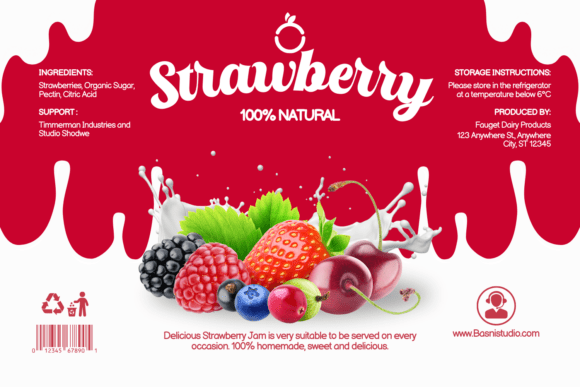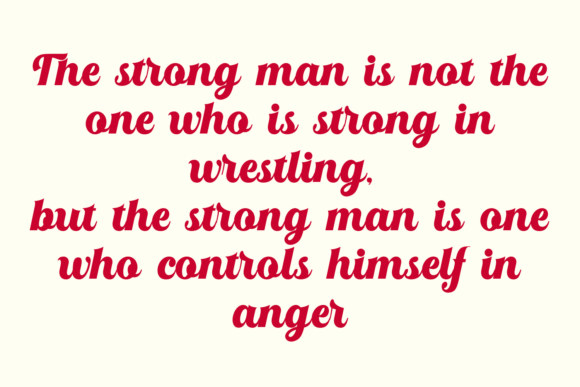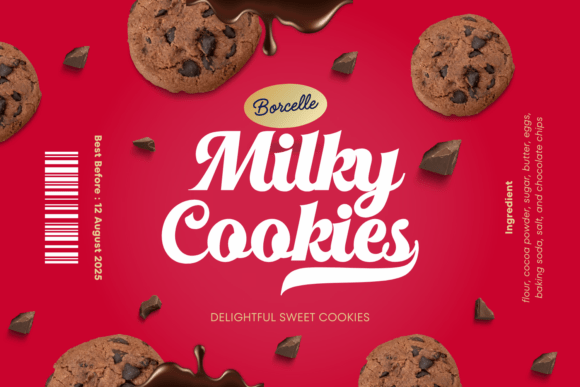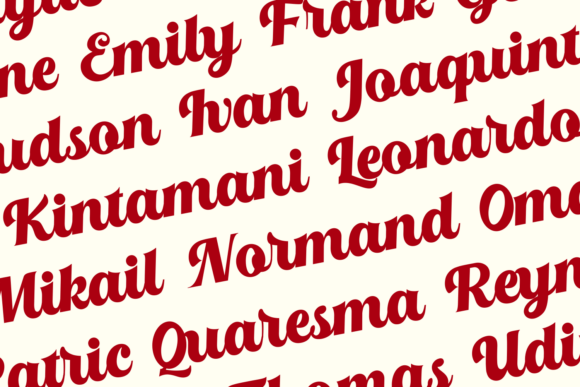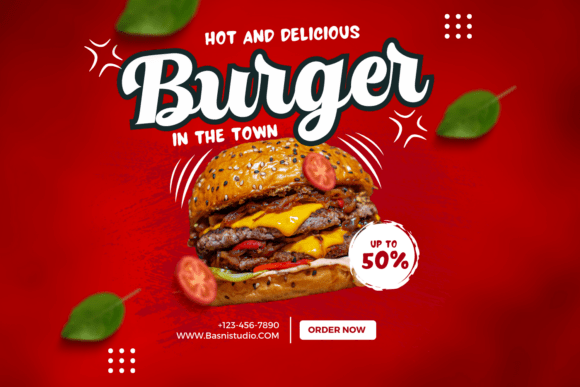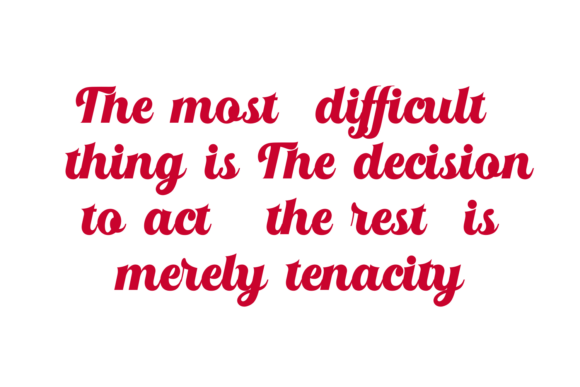
Unleash Bold Strength with Modern Calligraphy: Introducing Arakans Font 🎨✨
In the world of design, a brand’s identity is everything. It’s what sets you apart from the competition and makes your business memorable. One of the most effective ways to create a lasting impression is through typography. A bold, eye-catching font can instantly elevate your brand’s visual identity and make it stand out in a crowded market. That’s where Arakans Font comes in – a modern calligraphy font designed to transform your brand’s identity with the perfect blend of artistry and attitude.
What is Arakans Font?
Arakans is a bold calligraphy font that exudes confidence and personality. Its authentic, modern calligraphy style makes it perfect for brands that demand attention. Every stroke of this font is carefully crafted to convey a sense of fluid motion and energy, making it ideal for logos, branding, packaging, and social media.
Key Features of Arakans Font
- Authentic Bold Modern Calligraphy Style: Arakans font boasts an authentic, bold modern calligraphy style that is sure to make a statement. Every stroke exudes personality and fluid motion, giving your brand a unique and dynamic visual identity.
- Bold & Expressive: This font is perfect for brands that want to make a bold statement. Its bold and expressive style makes it ideal for logos, branding, packaging, and social media, allowing you to create a consistent visual identity across all platforms.
- Clean Brush Texture: Arakans font features a clean brush texture that adds a raw, organic feel to your designs. This texture gives your brand a unique character that sets it apart from the competition.
Why Choose Arakans Font?
With Arakans font, you can create a bold and memorable brand identity that speaks with confidence. Here are just a few reasons why designers and crafters love this font:
- Versatility: Arakans font is versatile and can be used across various design platforms, from logos and branding to packaging and social media.
- Uniqueness: The clean brush texture and bold calligraphy style of Arakans font make it a unique addition to any design project.
- Experiment with Different Sizes: Arakans font looks great in large and small sizes, so don’t be afraid to experiment with different sizes to find the one that works best for your design.
- Play with Colors: The clean brush texture of Arakans font looks great in a variety of colors, so try experimenting with different color combinations to find the one that works best for your brand.
- Pair it with Other Fonts: Arakans font pairs well with other fonts, so try pairing it with a sans-serif font for a bold and modern look.
If you’re looking for a bold and modern calligraphy font that can help transform your brand’s identity, look no further than Arakans Font. With its authentic bold modern calligraphy style, bold and expressive design, and clean brush texture, this font is perfect for brands that demand attention. So why wait? Download Arakans Font today and start creating a bold and memorable brand identity that speaks with confidence.
✅ Authentic Bold Modern Calligraphy Style – Every stroke exudes personality and fluid motion.
✅ Bold & Expressive – Perfect for logos, branding, packaging, and social media.
✅ Clean Brush Texture – A raw, organic feel that adds character and uniqueness.
Create. Inspire. Stand out with Arakans Font. 🎨✨